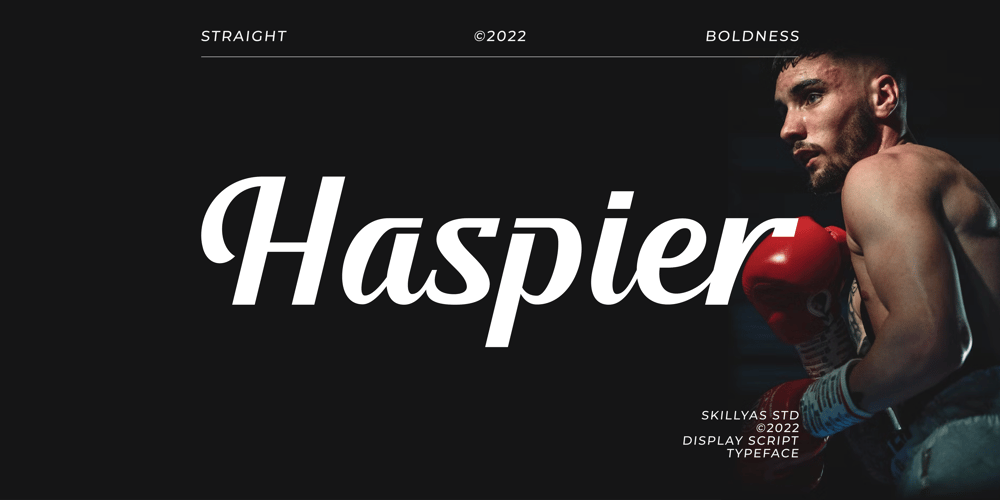
Haspier
Haspier font
Haspier Font Family was designed by ahmad faizin and published by skillyas studio. Haspier contains 1 styles and family package options. The Haspier is a Modern sharp bold script. Haspier is handcrafted Carefully with sharp curves on the edge.this font is great for Branding, Logo Design, Lettering, Logotype, Clothing, Poster, magazine, and another design project.The Haspier Character Set : Uppercase & Lowercase Letters -Punctuation ​​& Symbols Support PUA encoded Range Standard Alternative Style Standard Ligature Multilingual Support If you don’t have a program that supports OpenType features such as Adobe Illustrator, Adobe InDesign, Adobe Photoshop, Corel Draw,you can access all the alternative glyphs using Font Book (Mac) or Character Map (Windows).Thank you for your purchase!Hope you enjoy our font!